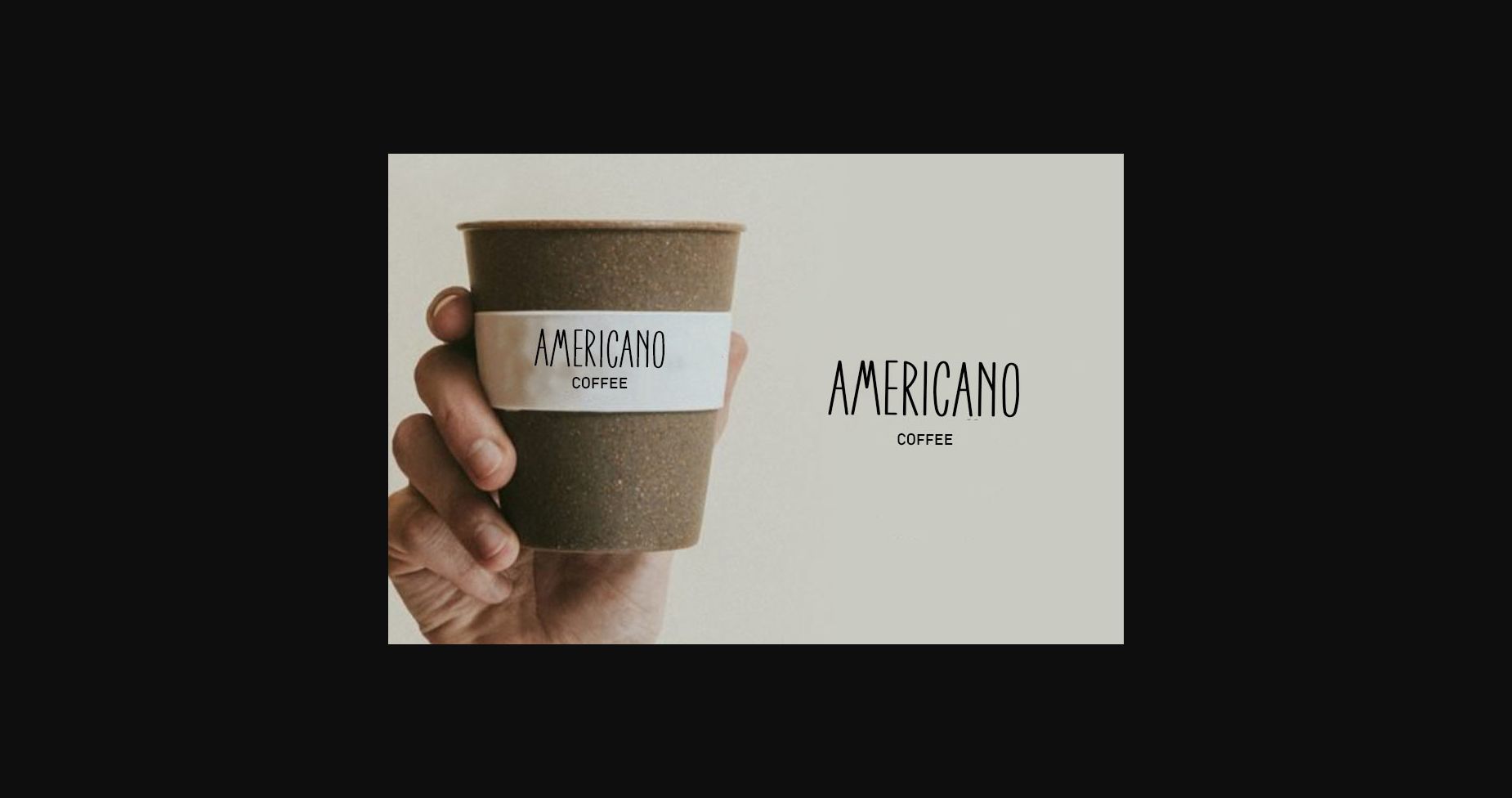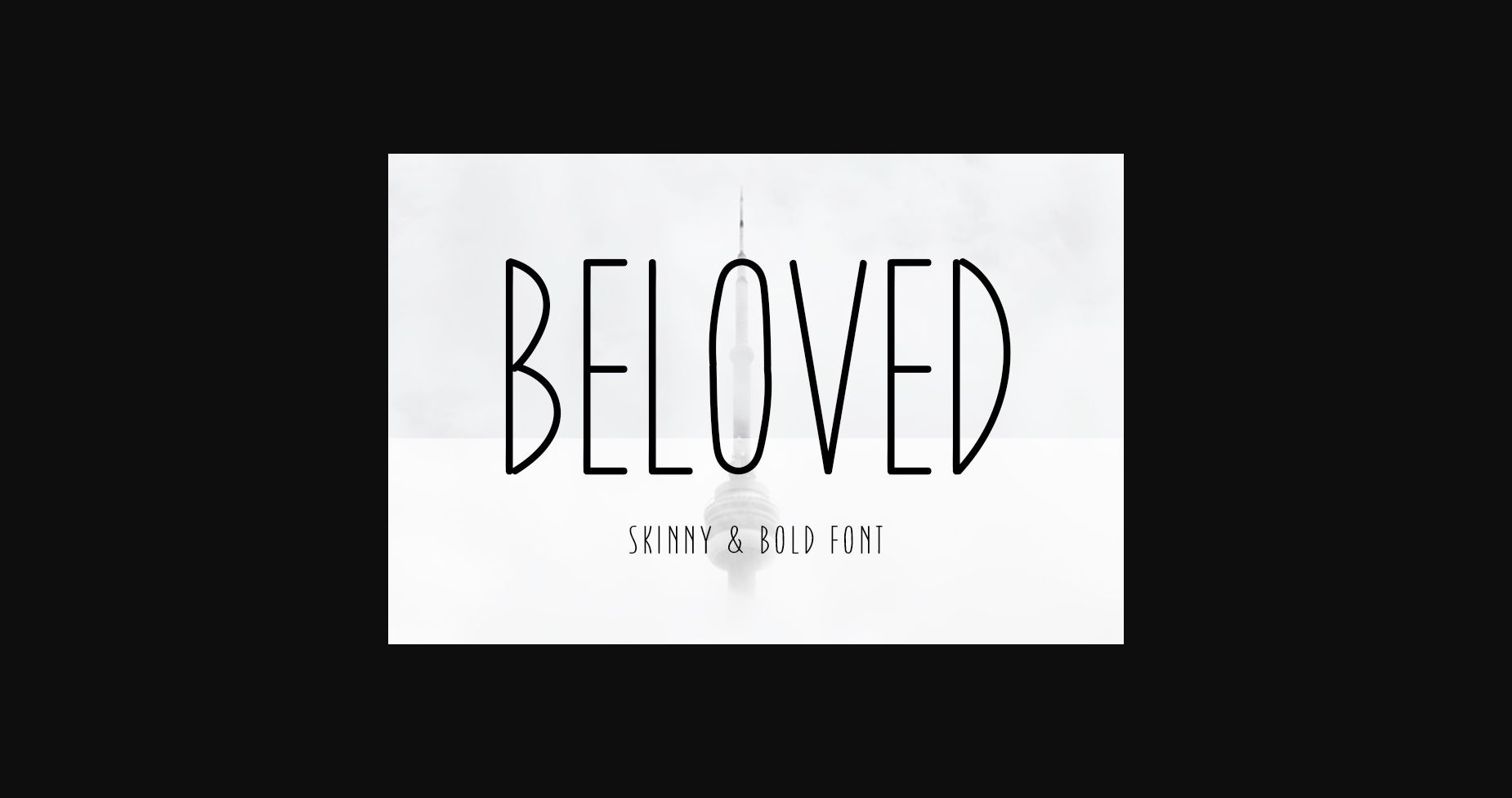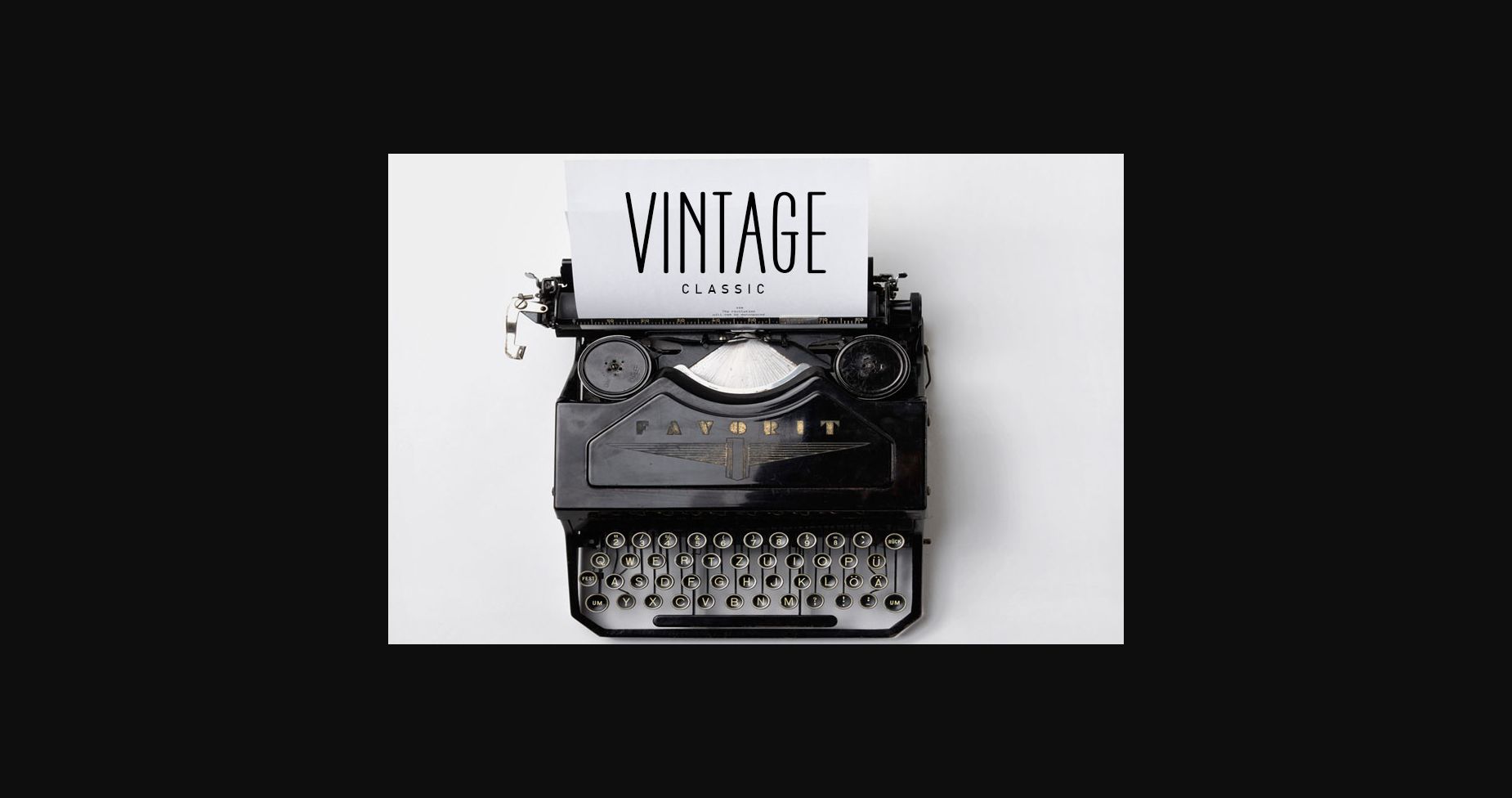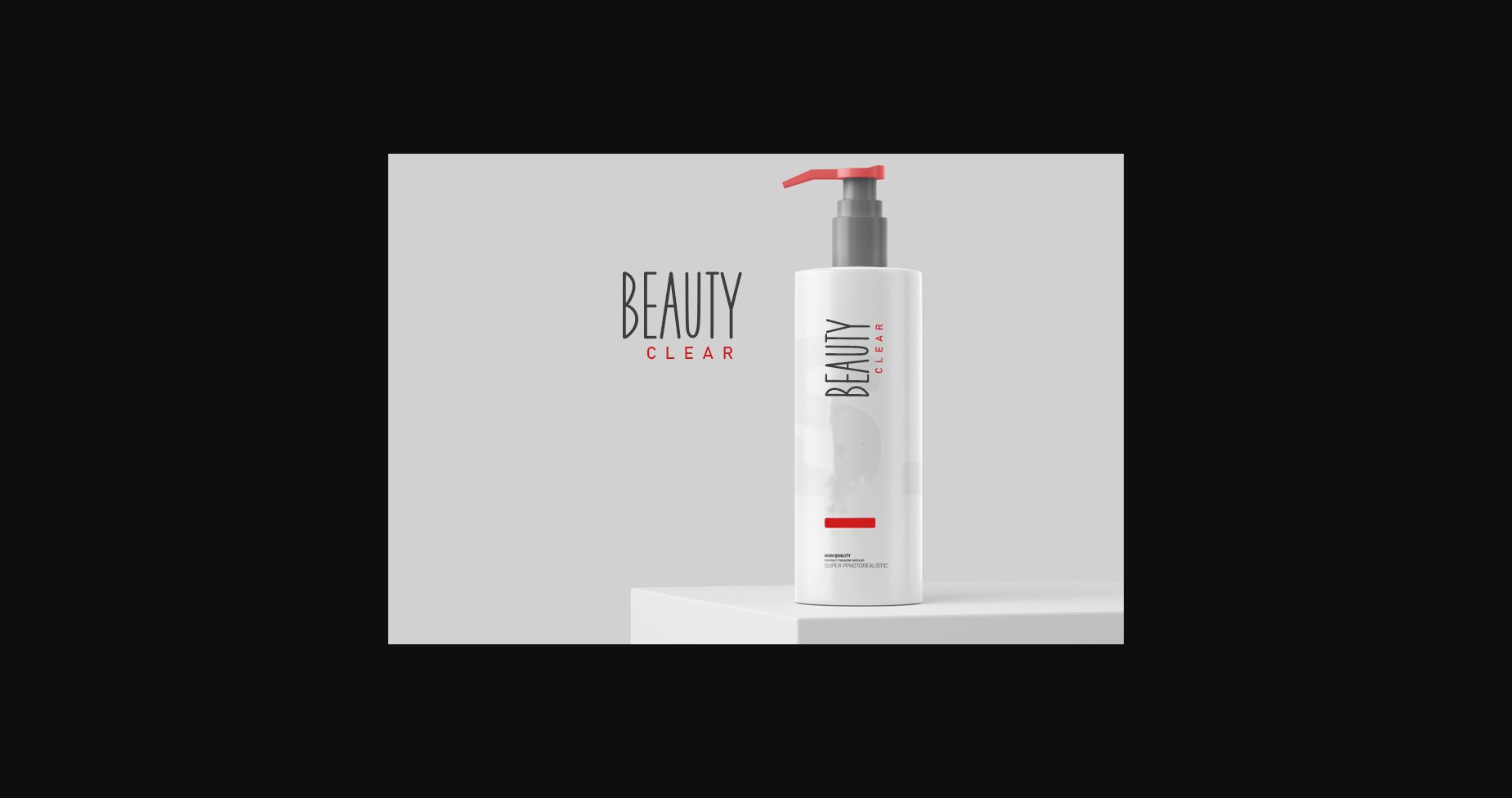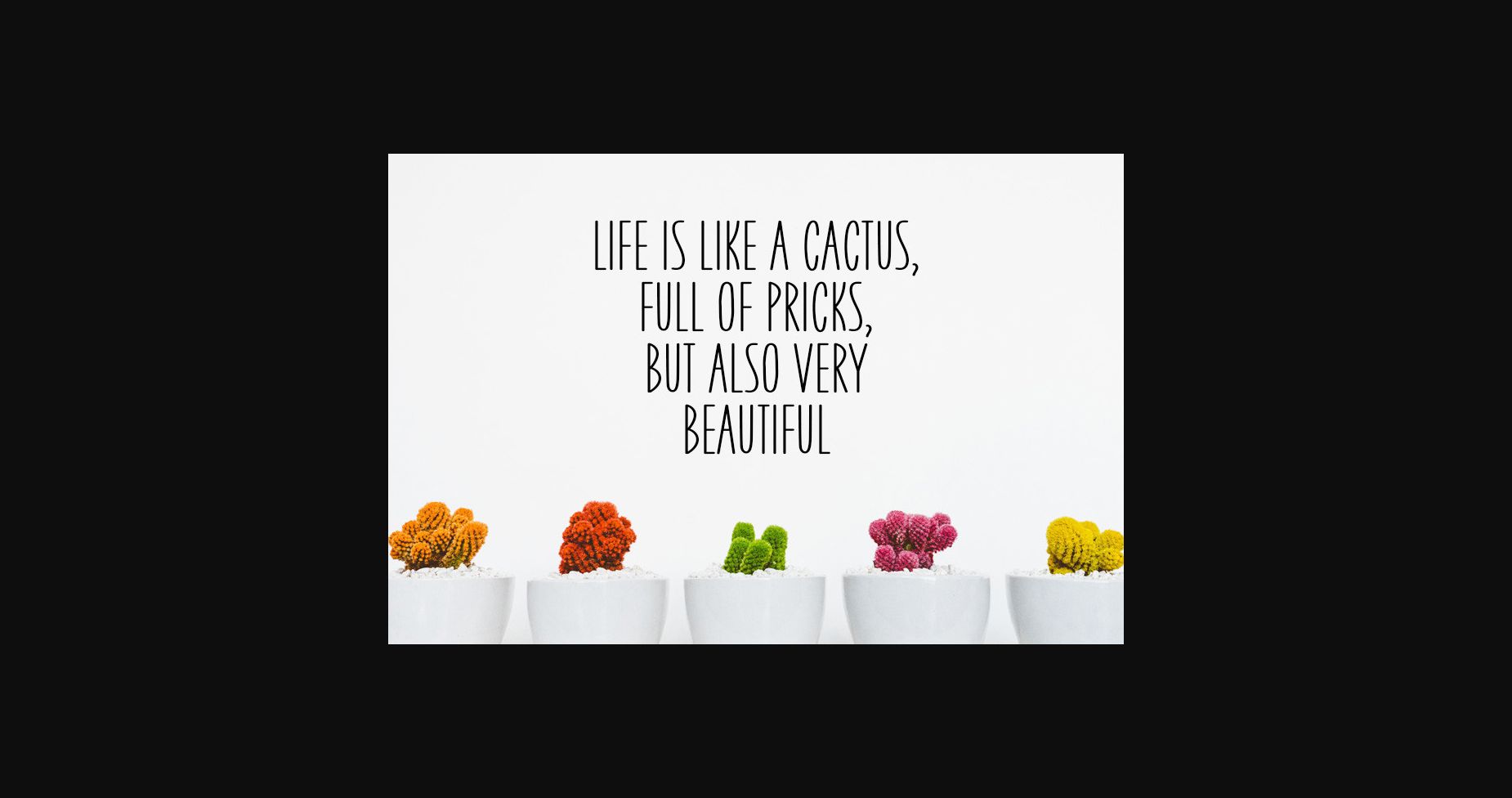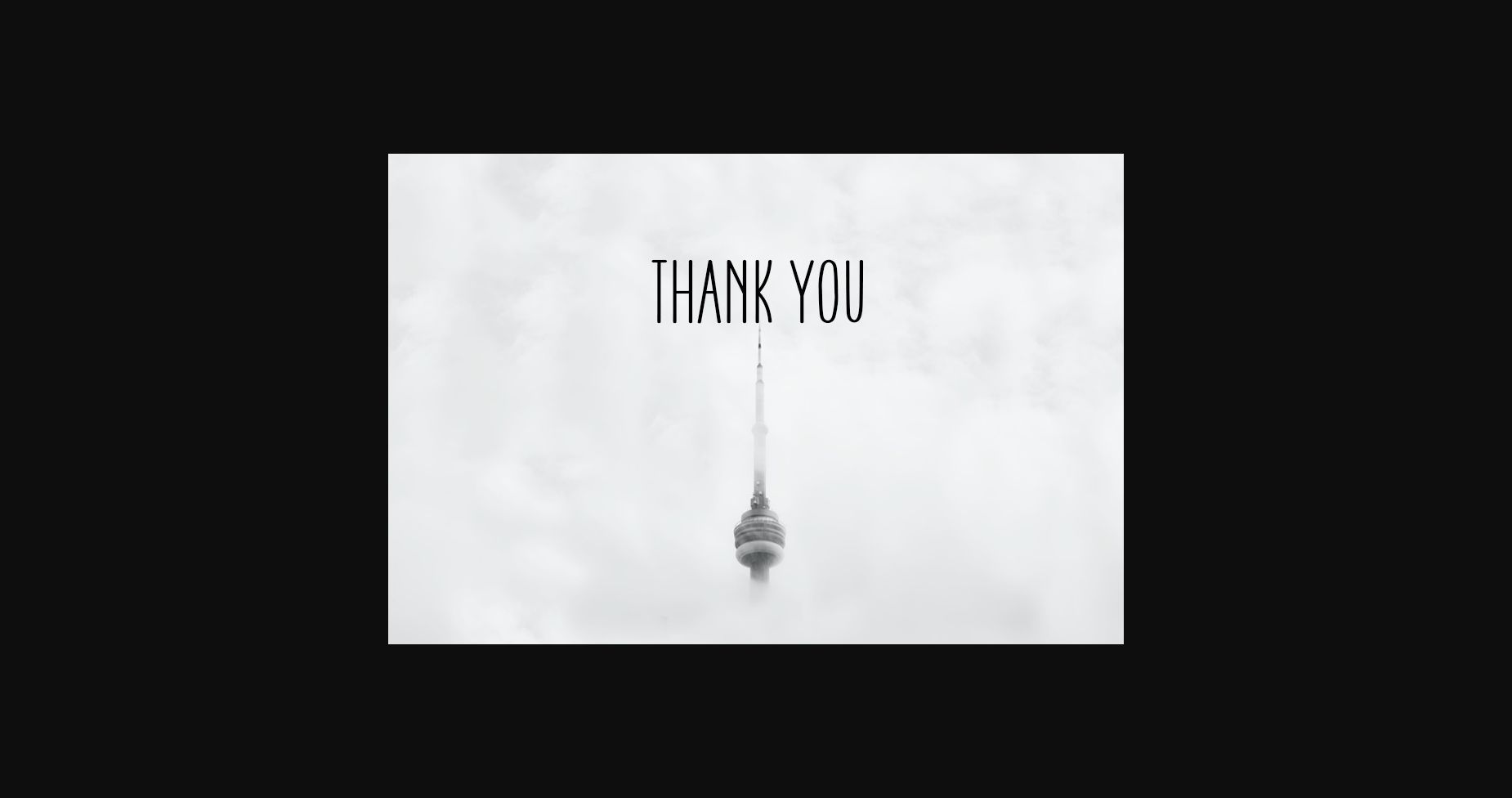
Beloved is a thin lettered and clean sans serif font. It can easily be matched to an incredibly large set of projects, so add it to your creative ideas and notice how it makes them stand out!